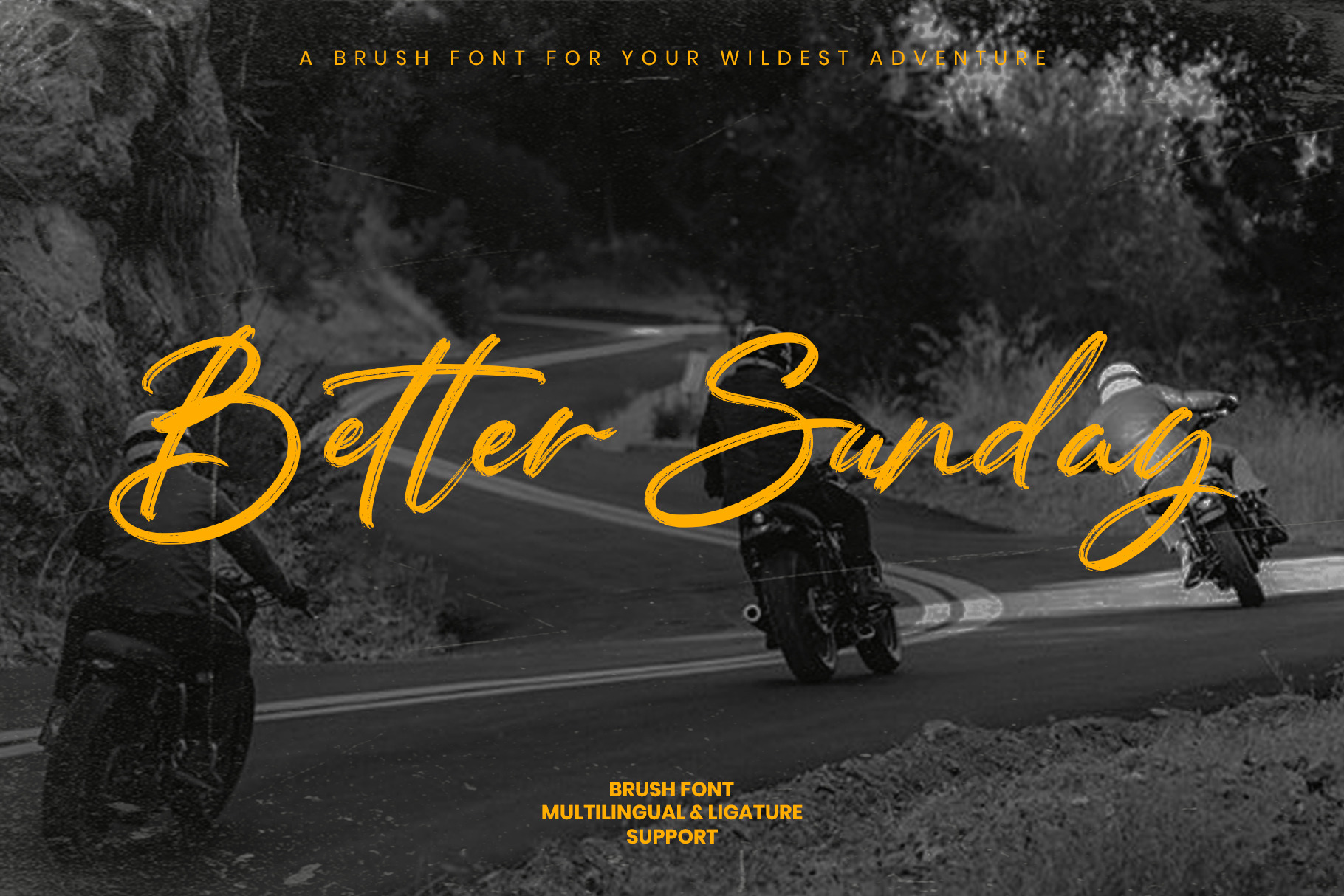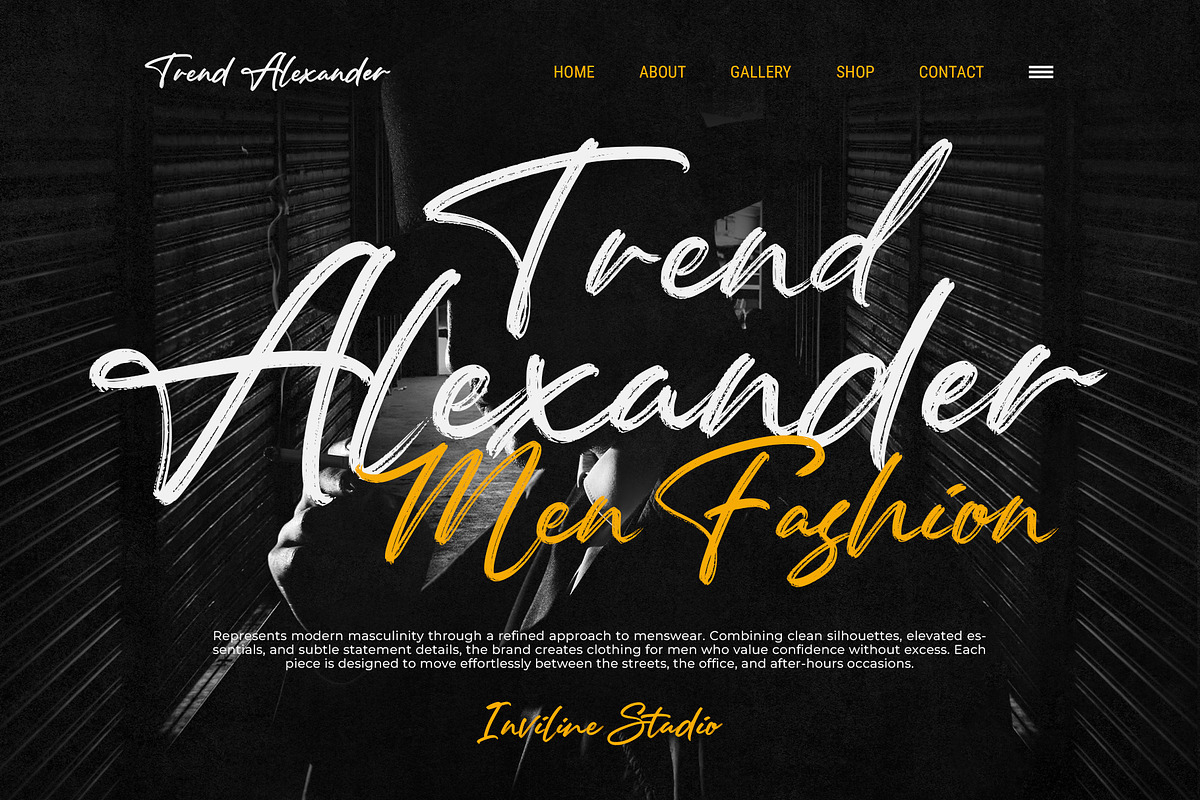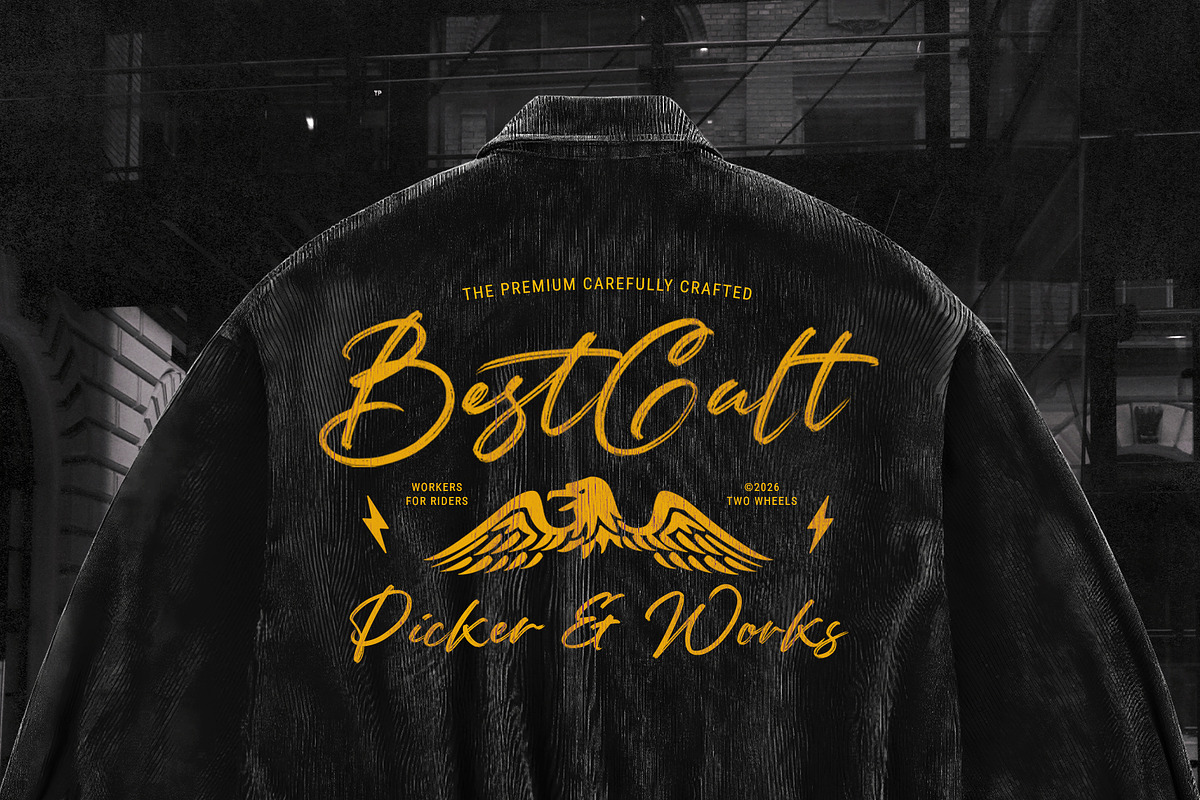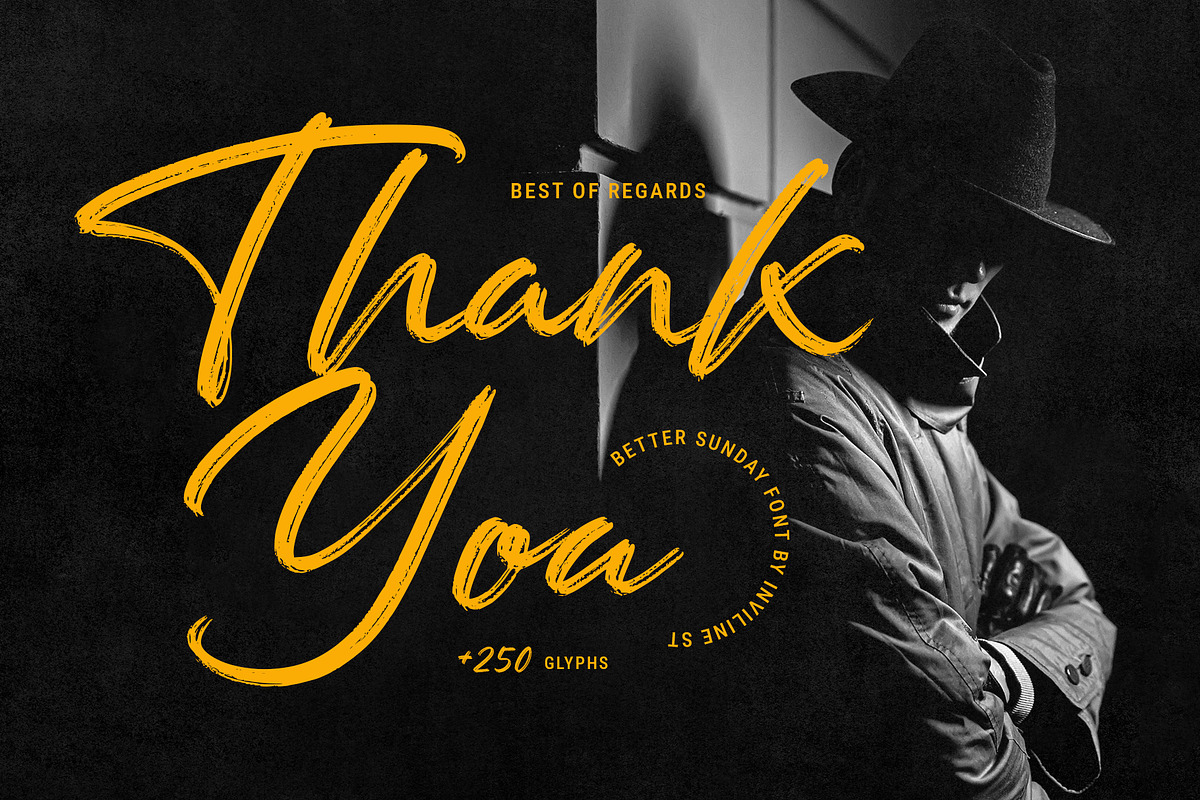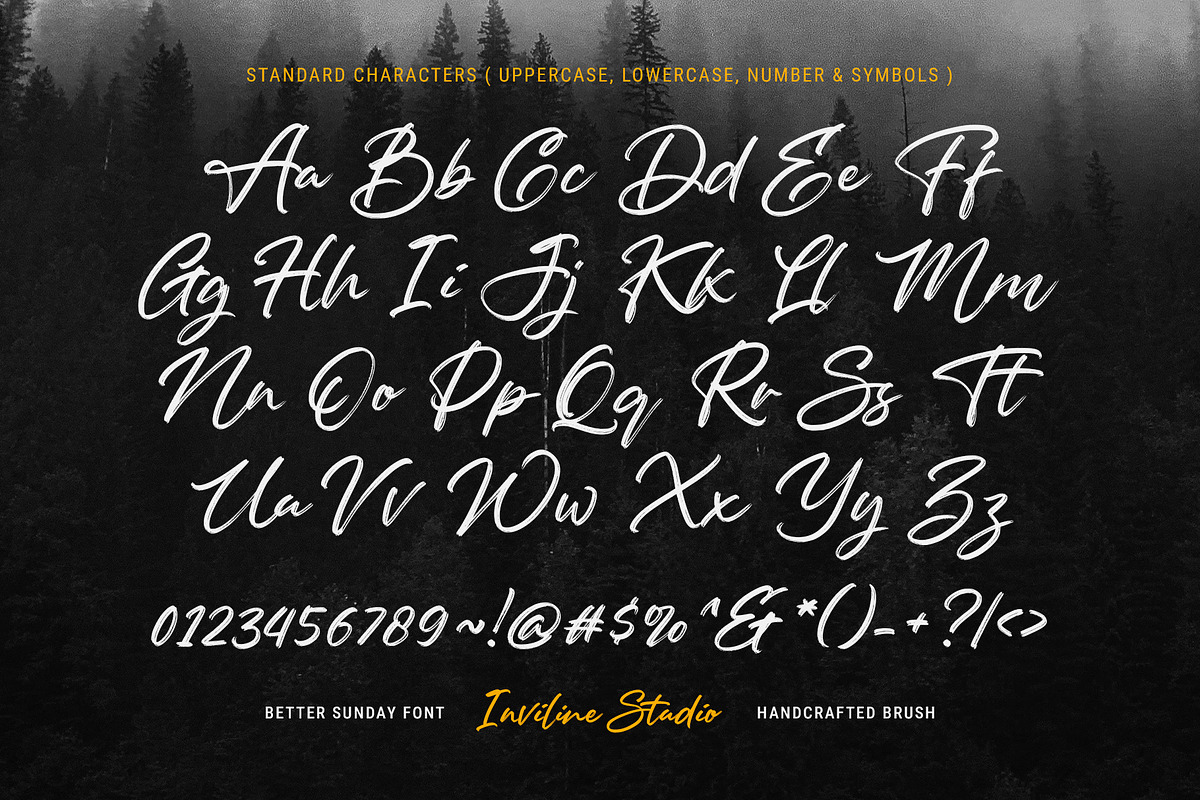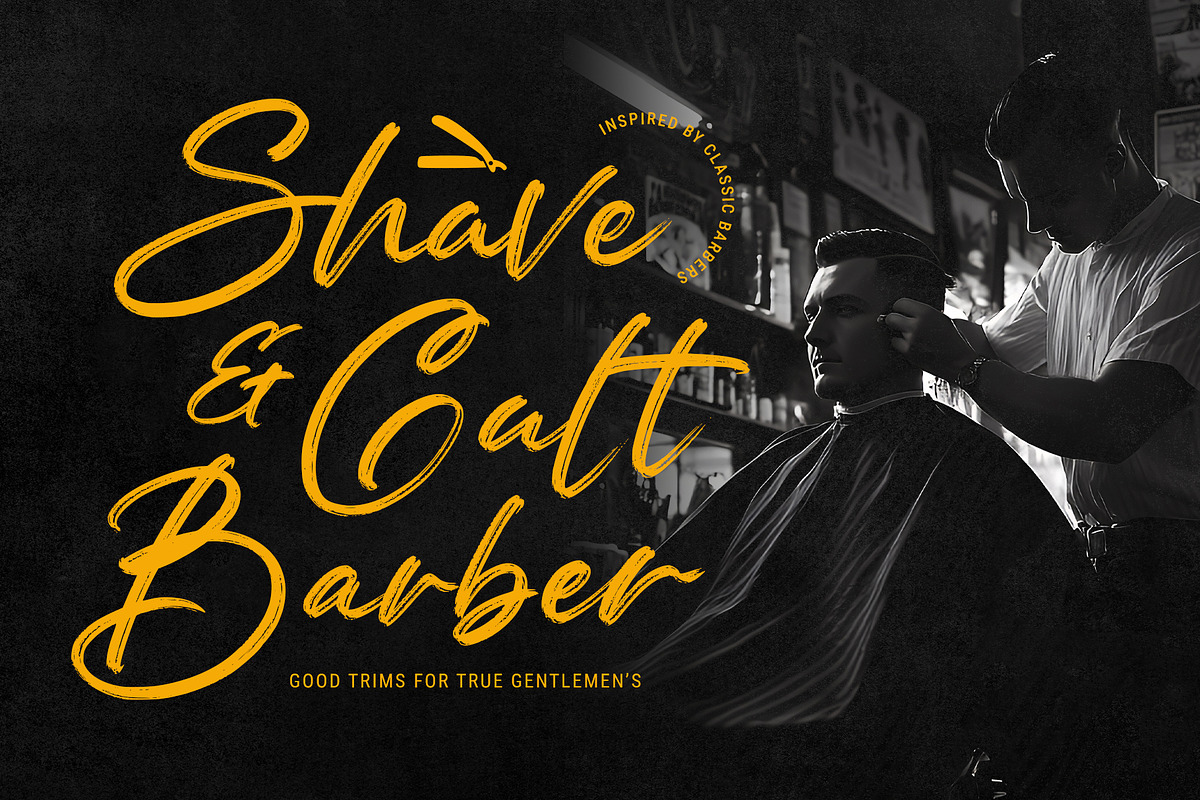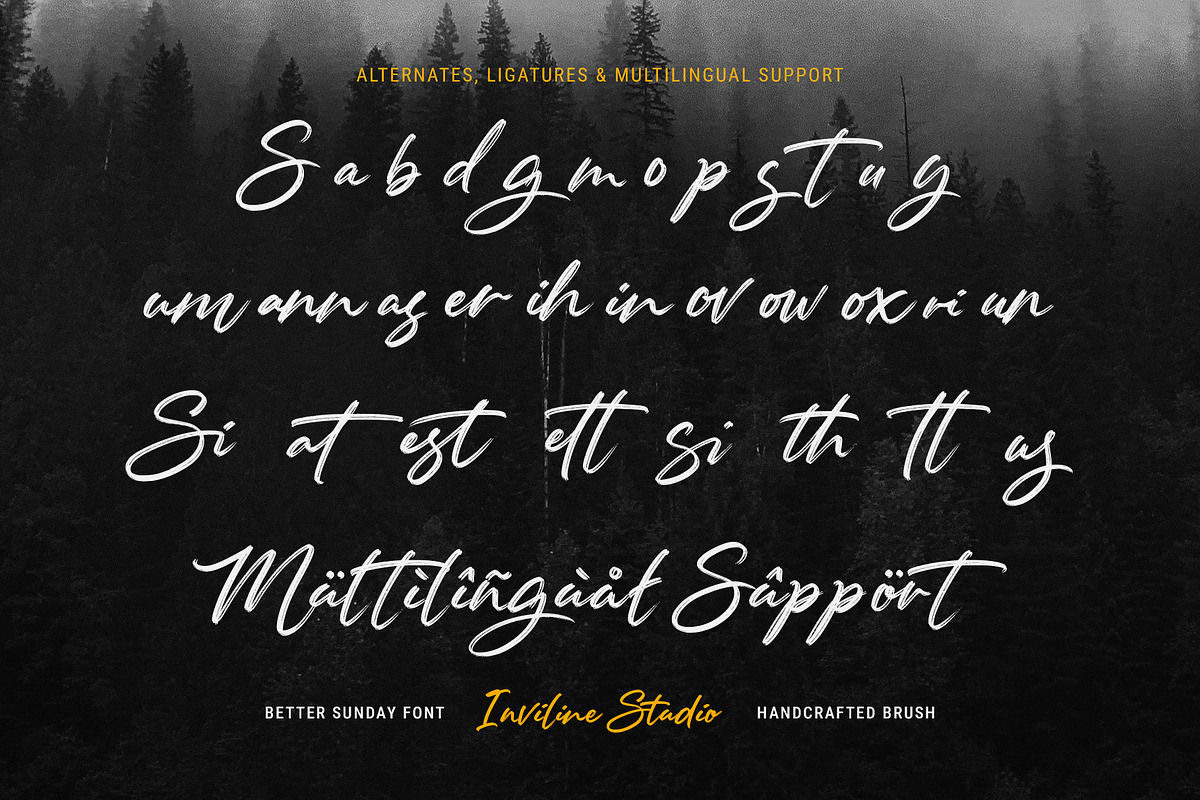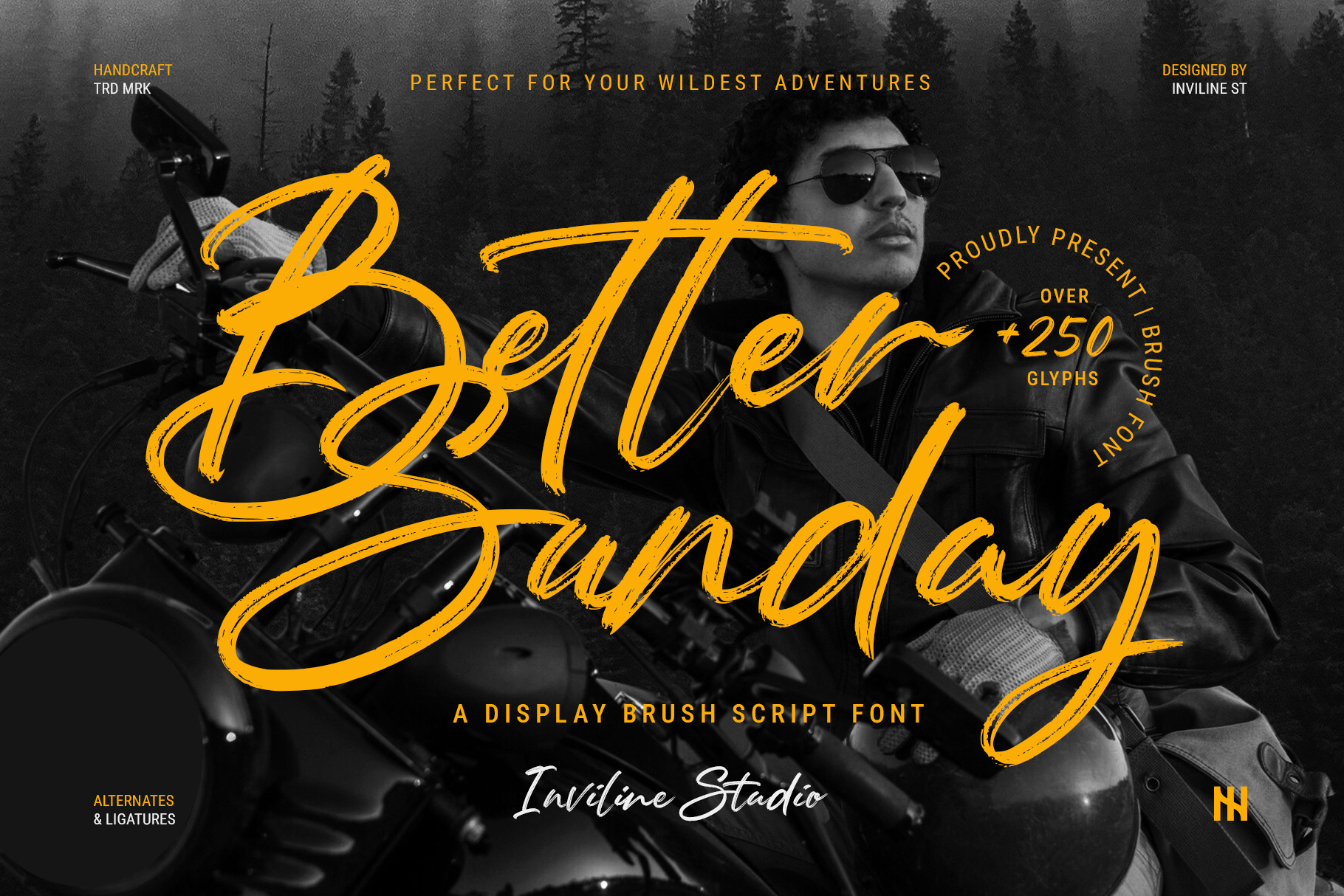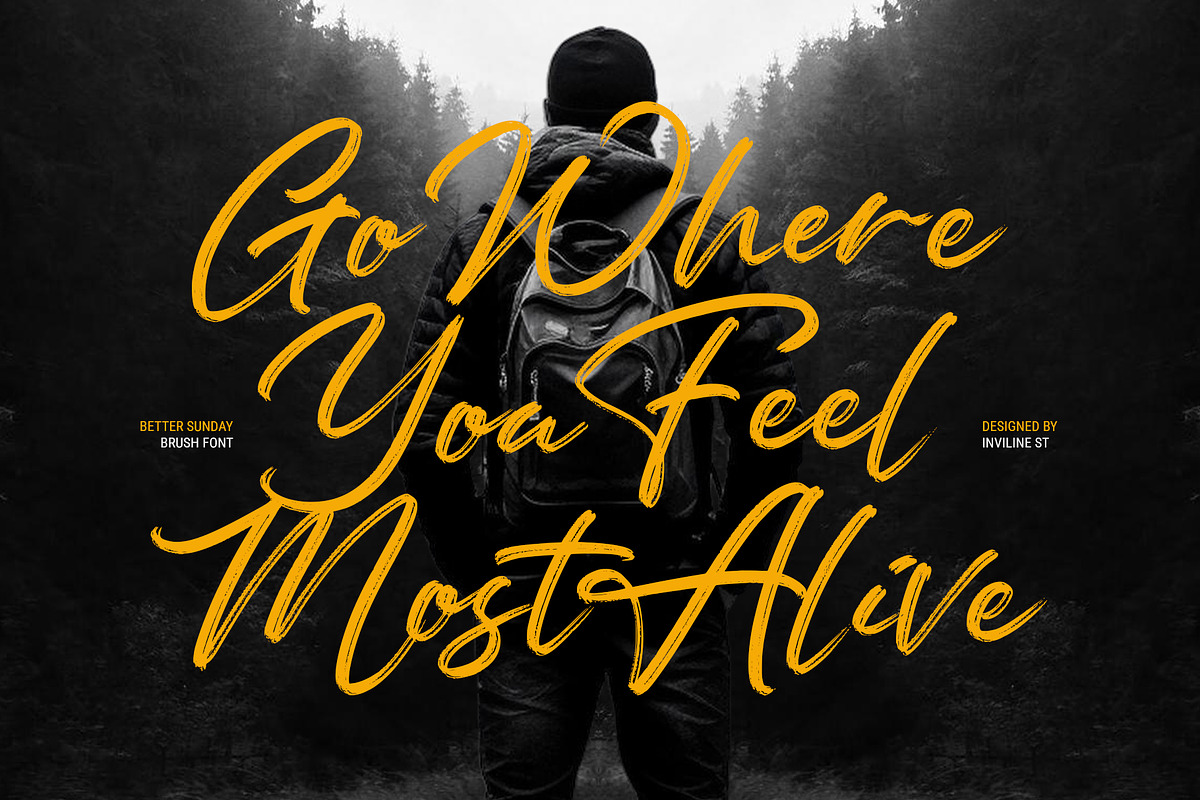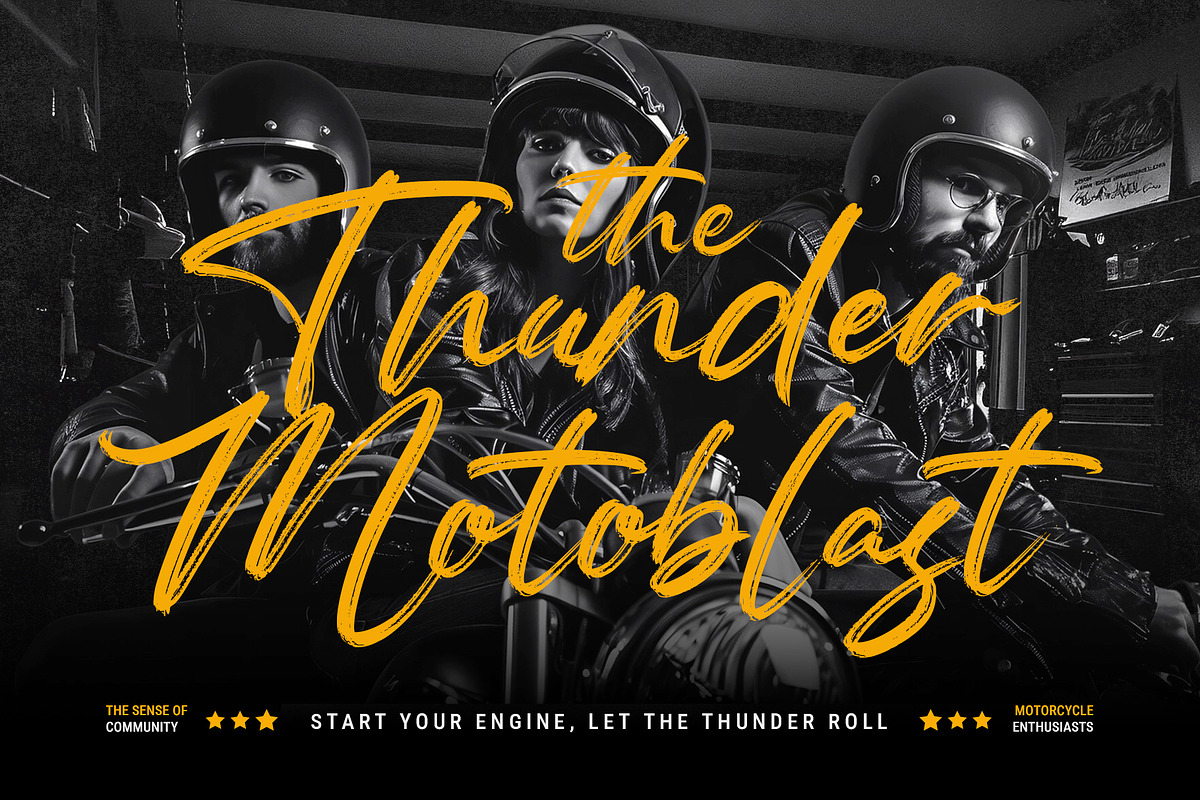
Better Sunday - Brush Script Font
Better Sunday is a bold brush script font made for the open road full of movement, grit, and freedom. Its hand-painted strokes carry the feeling of throttle, wind, and late-night rides, turning every word into a banner of adventure. Use it when you want your typography to feel loud, fearless, and unapologetically alive.
With its textured lines and energetic rhythm, Better Sunday keeps a balance between wild and readable. The letters connect smoothly, ligatures keep the flow natural, and the overall look brings a rugged, adventurous spirit to any design from posters and event flyers to logos and statement quotes.
Brush Script Typeface
Uppercase & Lowercase Letters
Ligature Support for natural lettering flow
High-contrast strokes, great for big titles & headlines
Textured brush details for a handcrafted look
Ideal for bold compositions and layered designs
Motorcycle & motorsport branding
Event posters, tour flyers, and gig promotions
Garage, bar, and coffee shop logos or signage
Adventure and outdoor lifestyle branding
Editorial titles and magazine covers
Social media quotes & bold typographic layouts
Packaging that needs a daring, expressive touch
Any design that wants to say: built for the wild, born for the road.